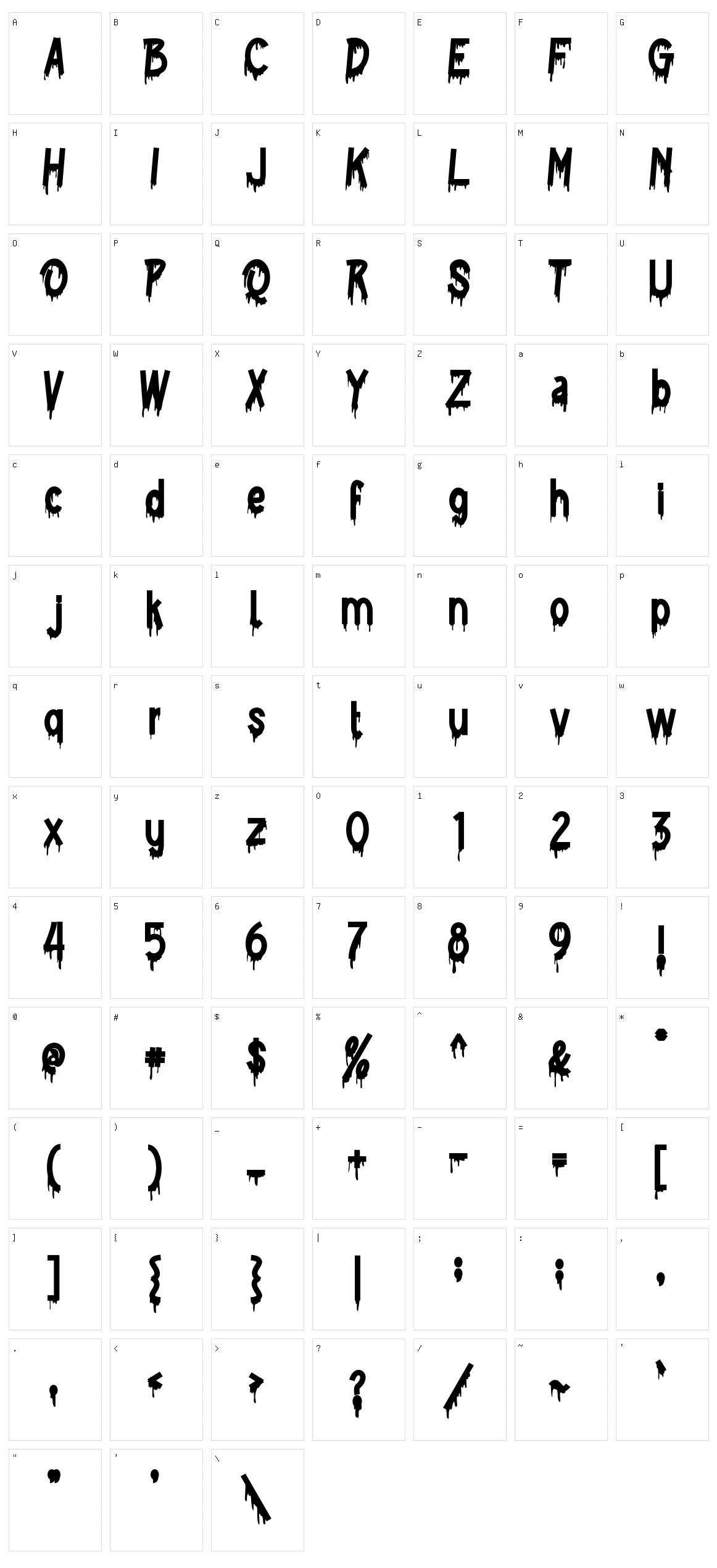
The free font Holy Blood is carefully designed by Display Studio, showcasing a thoughtful balance of creativity and usability and falls under the Horror font style. When you download the ZIP file, it contains only 147.4 KB of font files, making it lightweight and quick to download. Please review the license details below to understand permitted usage and distribution rights. If license information is not available, we recommend using this font for personal projects only or contacting the author directly for commercial usage permissions.